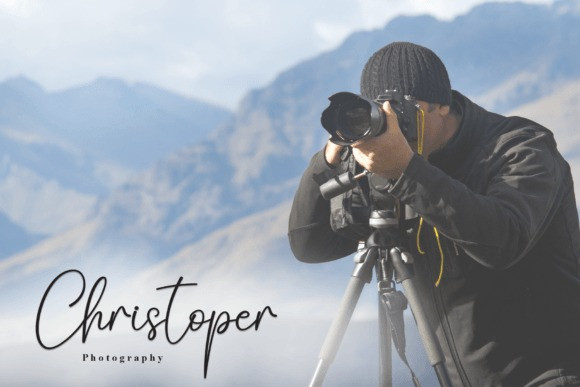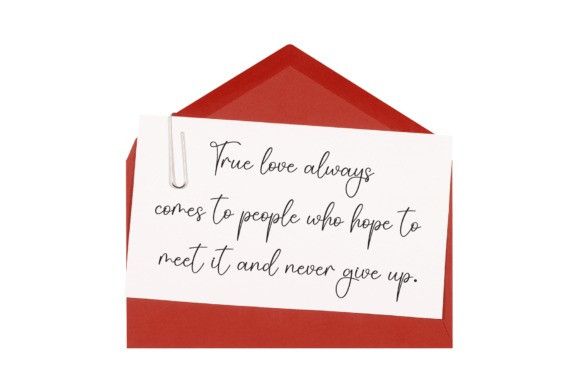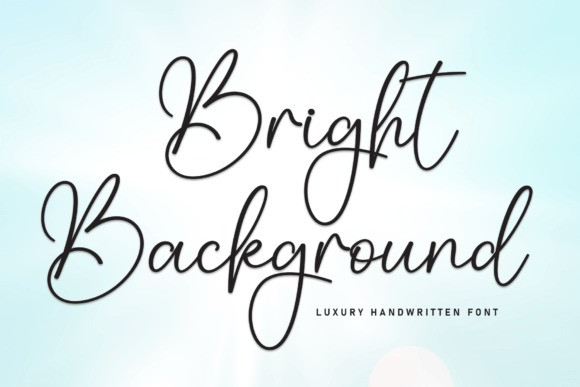
Bright Background Font
Bright Background Font is a charming handwritten font imbued with a sense of freshness and casual elegance. Its fluid strokes and organic lines evoke a laid-back vibe, making it perfect for various design projects. Whether used for branding, invitations, or social media graphics, Bright Background adds a touch of warmth and personality.